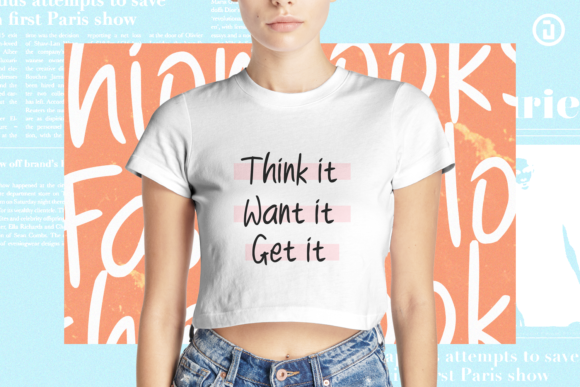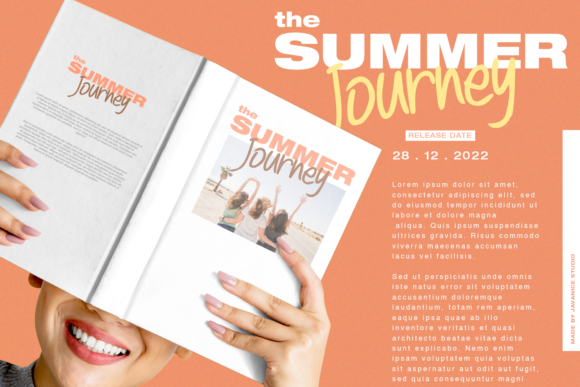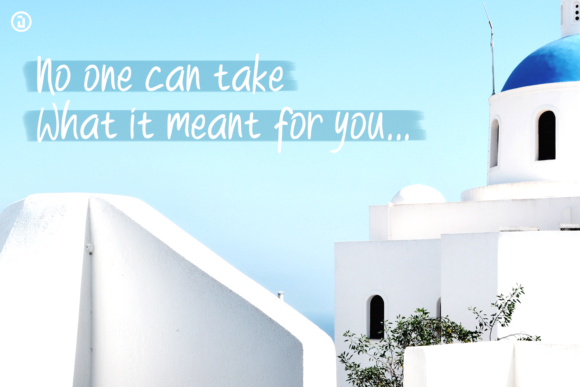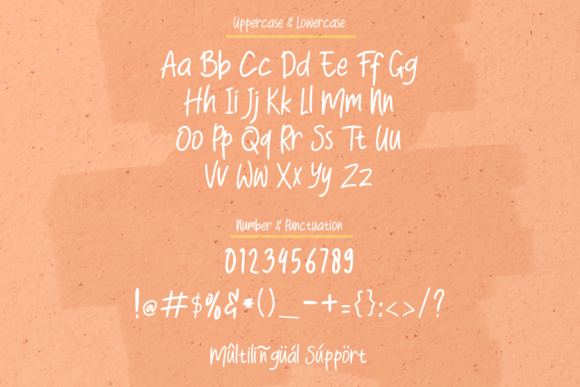
About Mainliners Font
“Mainliners” is a relaxed and casual handwritten font that adds a laid-back and easygoing vibe to your design projects. Its versatility makes it a perfect choice for a variety of applications, including product packaging, branding projects, magazine covers, social media content, wedding materials, or whenever you want to convey words with a carefree and approachable style against a background.
The font’s casual and handwritten aesthetic lends itself well to creating a friendly and down-to-earth atmosphere. Imagine “Mainliners” enhancing product packaging, where its relaxed style adds a touch of informality and approachability to the overall design. Picture it on a magazine cover, effortlessly capturing attention and exuding a comfortable and welcoming feel.
For branding projects, “Mainliners” can contribute to a brand identity that feels authentic and relatable. Its handwritten charm is well-suited for social media posts, creating a friendly and engaging tone. In wedding materials, the font’s casual nature can bring a modern and relaxed vibe to invitations, RSVP cards, and other related designs.
Whether used digitally or in print, “Mainliners” has the flexibility to adapt to different design contexts, expressing words with a sense of ease and informality. Its relaxed and casual demeanor makes it an excellent choice for projects where a laid-back and approachable style is desired.
In summary, “Mainliners” is more than just a font; it’s a design tool that brings a relaxed and casual touch to your creative projects. Its versatility and friendly vibe make it a standout choice for those seeking a font that effortlessly communicates a carefree and approachable aesthetic in various design scenarios.